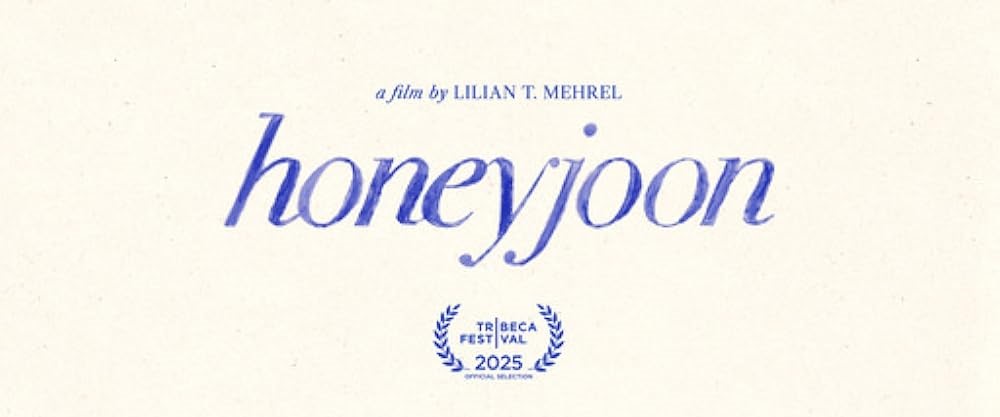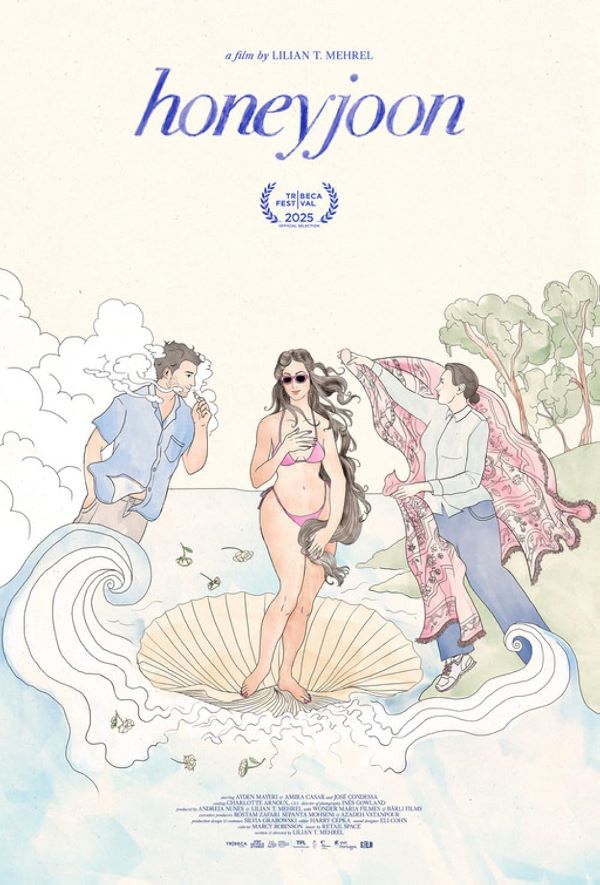
Honeyjoon Font
Honeyjoon font is the elegant display font used in the title treatment of the film Honeyjoon, a heartfelt story following June and her Persian-British mother Lela as they travel to the Azores to mark a grief anniversary — two women with very different ways of carrying loss, brought together by the ocean, a charismatic surfer, and the messy, beautiful currents of life, longing, and letting go. While the original title lettering appears to be a custom-designed font, the closest alternative is Walbaum Pro 96pt Italic by Monotype — a refined, high-contrast serif font with graceful italics that perfectly mirrors the film’s warm, romantic, and emotionally rich atmosphere.
Designer: Monotype
Style: Display, Serif, Italic, Elegant, High-Contrast